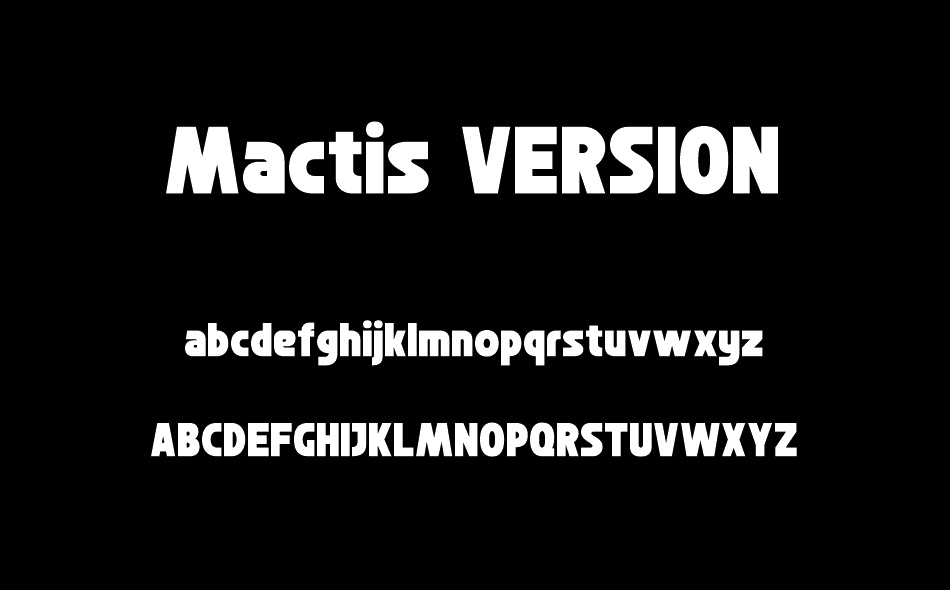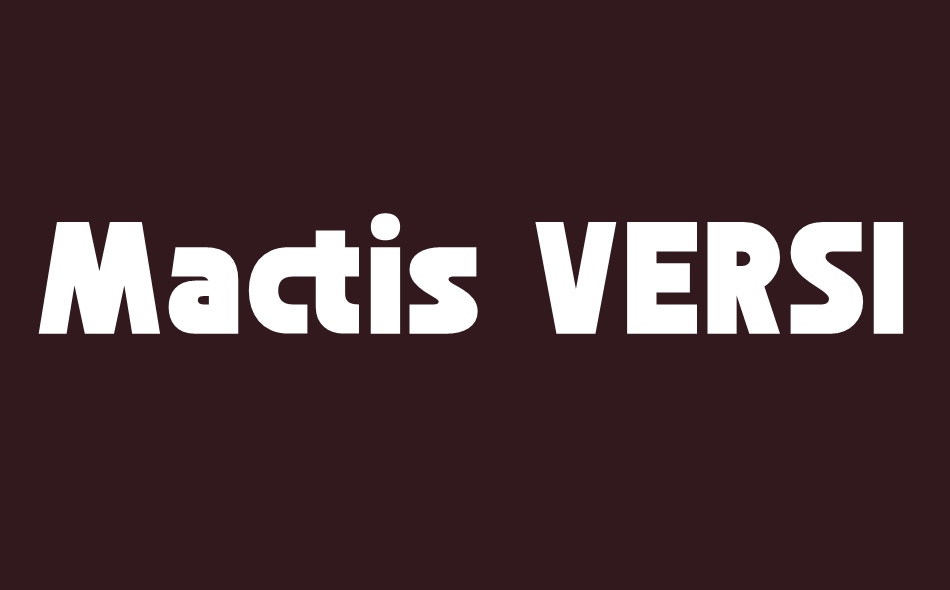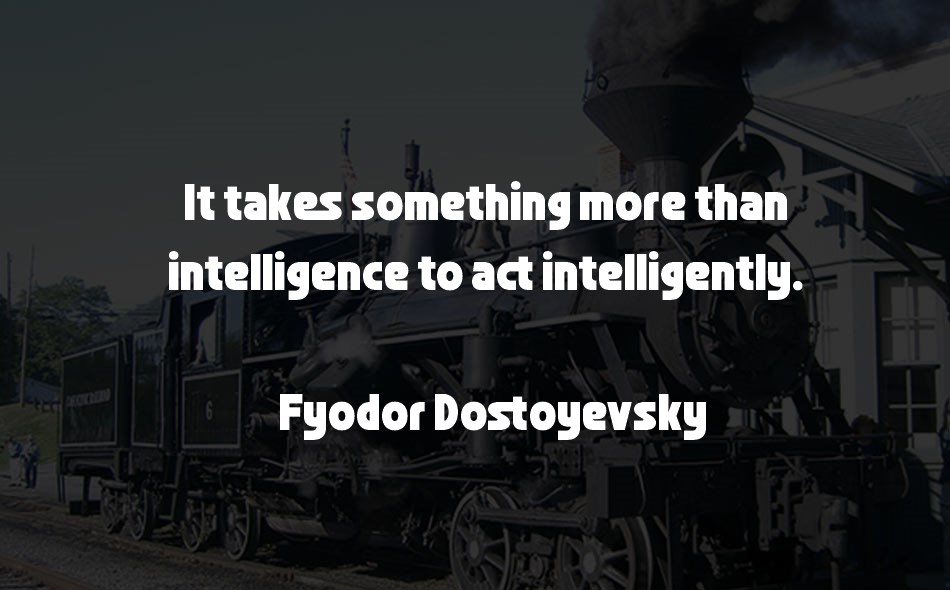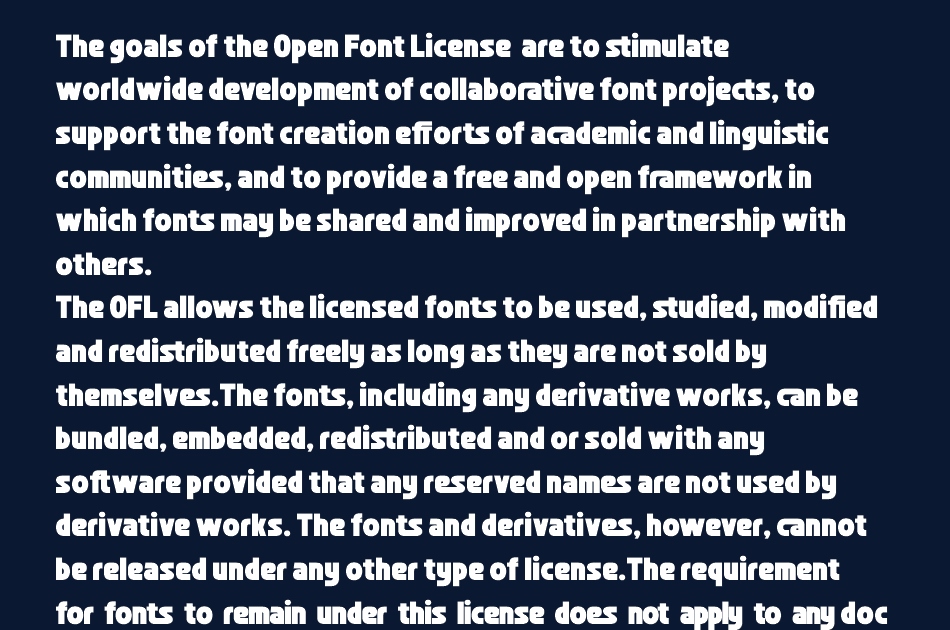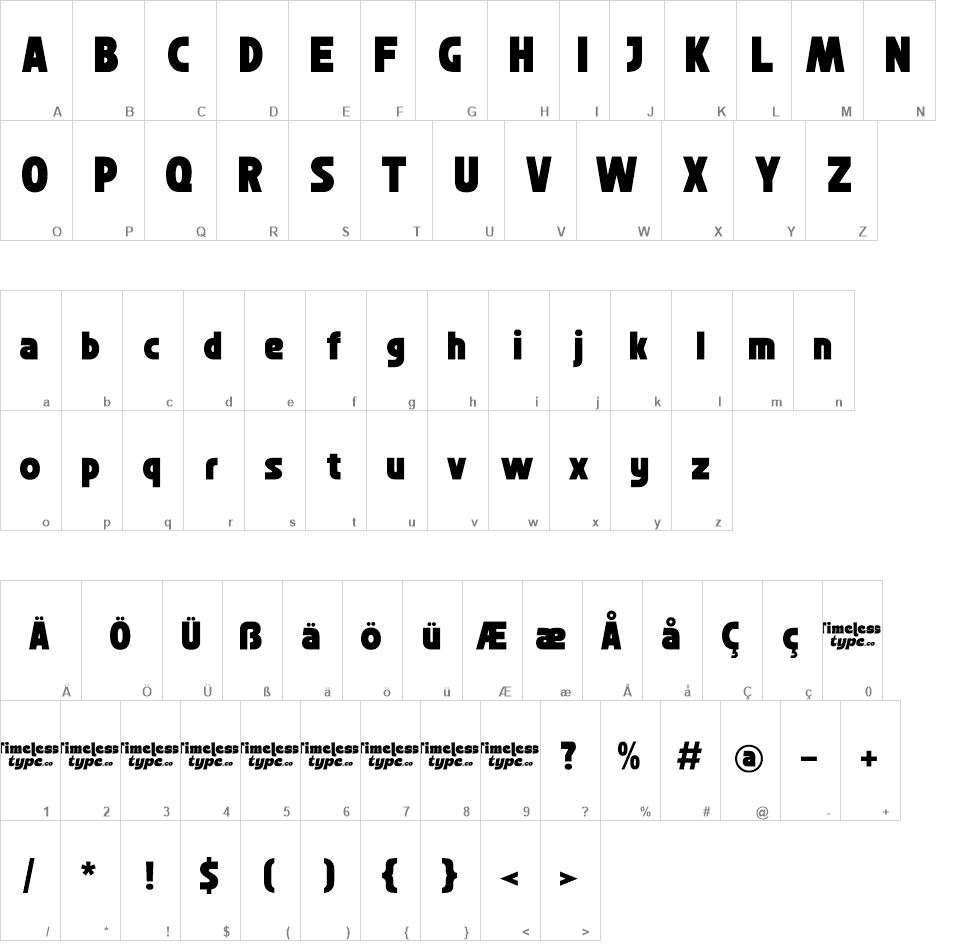
Mactis font
Mactis - Bold Sans Display Font
Demand attention with unparalleled visual weight. Introducing Mactis - Bold Sans Display Font, the ultimate headline typeface built for maximum impact and immediate recognition. This is a display font characterized by its extremely heavy stroke contrast, rounded terminals, and tight, intentional kerning, positioning it perfectly for projects that require a loud, yet highly refined voice. Its sturdy, monolithic presence ensures your message is not just seen, but immediately felt across any medium.
Unlock creative depth with expansive typographic options. Mactis - Bold Sans Display Font is perfect for high-visibility advertising, striking poster design, editorial fashion spreads, and dynamic motion graphics. This is a design asset engineered for versatility. Featuring a comprehensive set of 017 standard ligatures and 007 stylistic alternates, it allows designers to craft truly bespoke headlines and logo types, injecting subtle personality while maintaining essential legibility at large scales.
Expand your brand reach effortlessly across international borders. Global campaigns require typefaces built for immediate cultural translation and technical breadth. With its extensive multilingual support, Mactis - Bold Sans Display Font adapts seamlessly across global markets, making it incredibly versatile for international projects. This robust feature set ensures consistent, high-quality representation whether targeting Western European, Central European, or other language groups, cementing its status as an indispensable professional resource.
Inject immediate personality and confidence into your core branding. The design philosophy behind Mactis - Bold Sans Display Font marries reliable, heavy structure with a playful, yet sophisticated curvature, making it highly effective for youth marketing, retro-inspired campaigns, and bold packaging design. Choose Mactis - Bold Sans Display Font when your project demands a typeface that is both undeniably fun and unequivocally professional, ensuring your visual communication is always loud, clear, and utterly memorable.